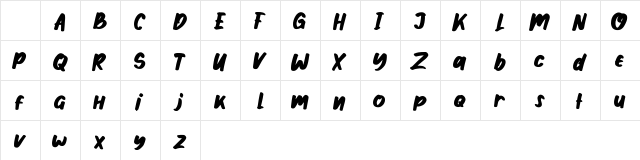
Complete Gibson walsh Regular glyph index. Displaying only characters natively supported by Gibson walsh Regular font.
Gibson walsh is a composed and adaptable typeface that performs quietly and consistently across a wide range of design contexts.